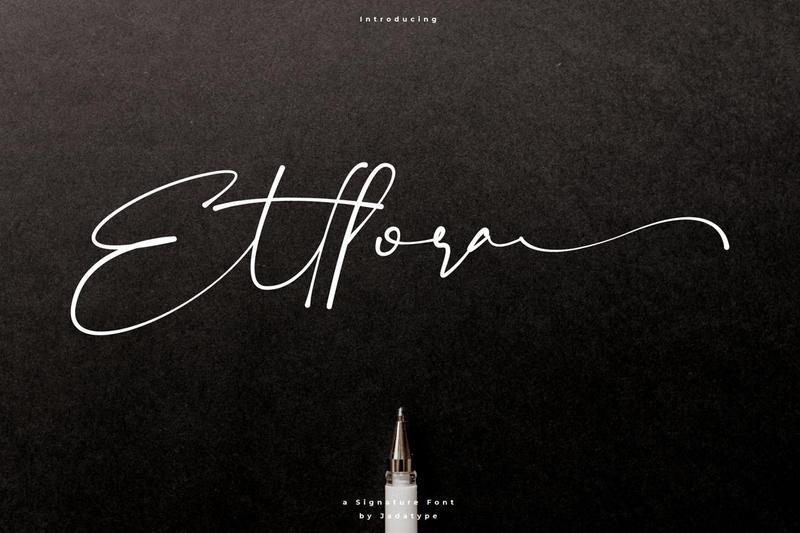
Ettlora – Natural Signature UQXAA4Y
Ettlora is a signature script font with natural handwritten strokes that create an elegant and personal appearance. It is ideal for branding, logos, wedding invitations, greeting cards, social media graphics, product packaging, book covers, and other creative design projects. The font includes standard English letters, numbers, punctuation, and multilingual support for versatile use across print and digital media.
Standard uppercase and lowercase letters
Numbers and basic punctuation
Natural signature-style handwritten letterforms
Several accented characters for multilingual support
Single style: Regular